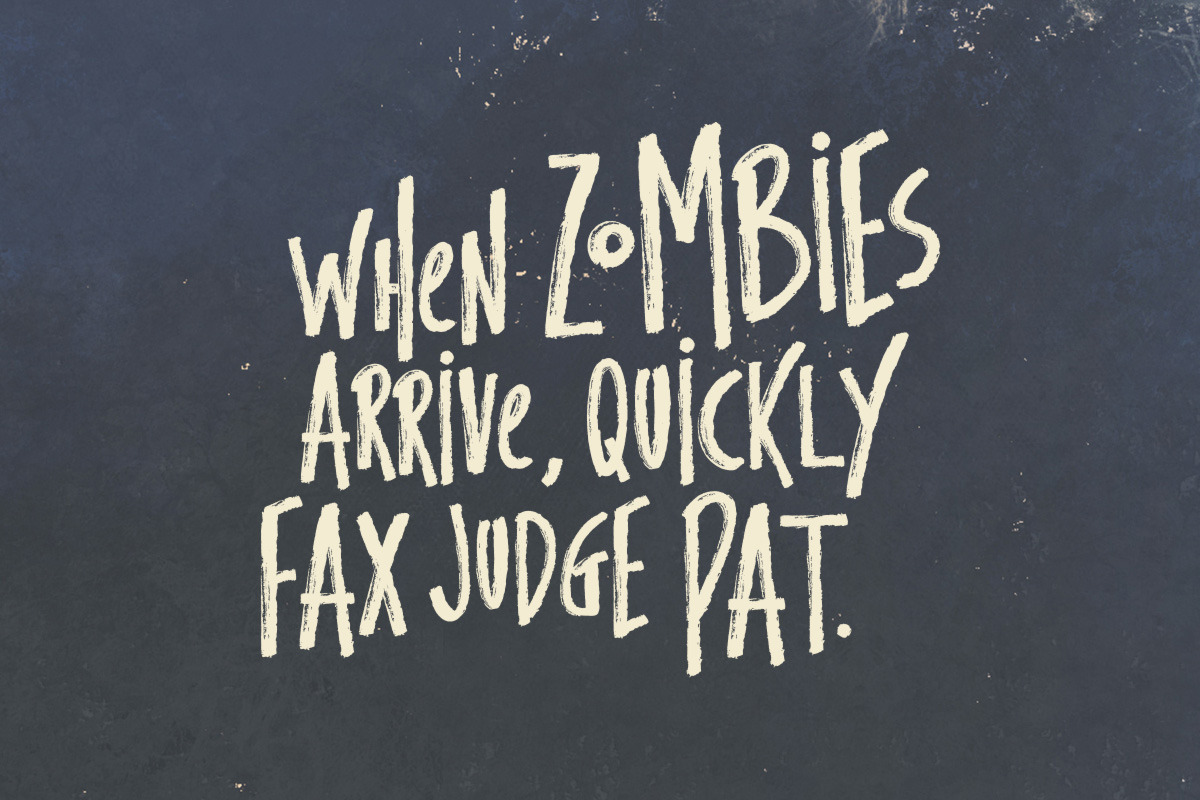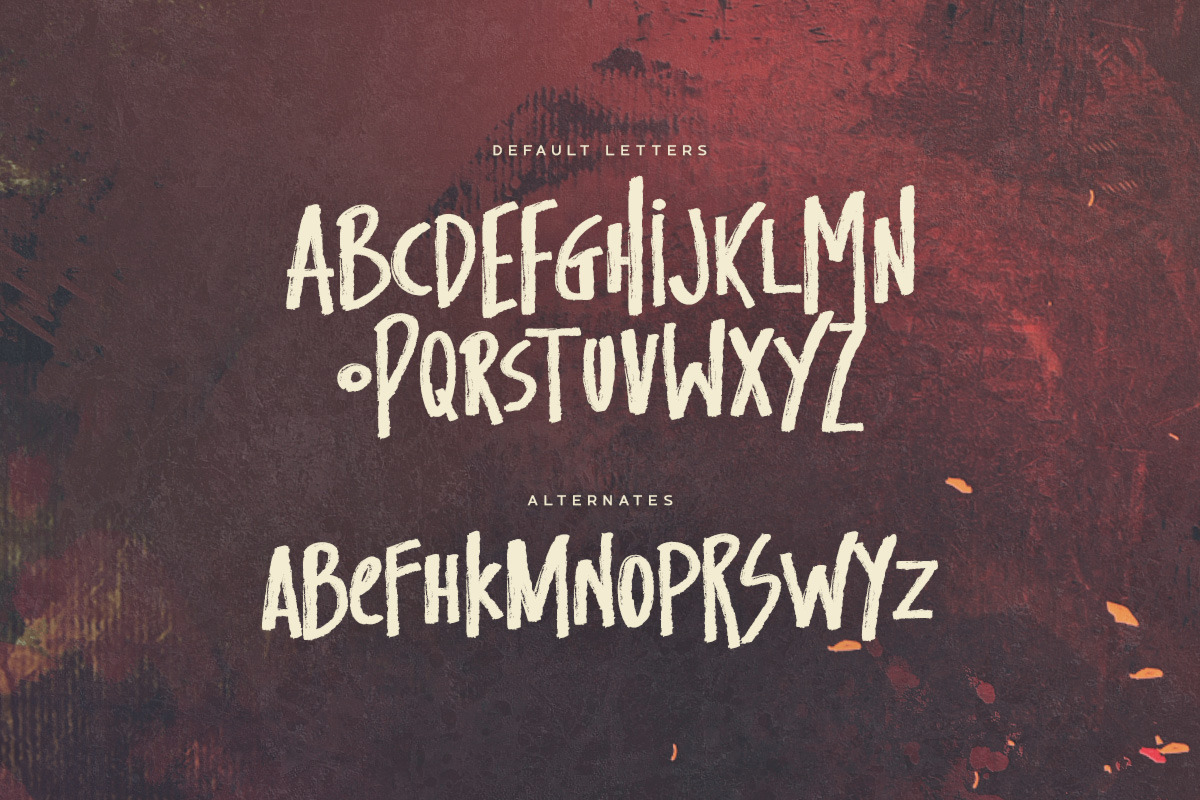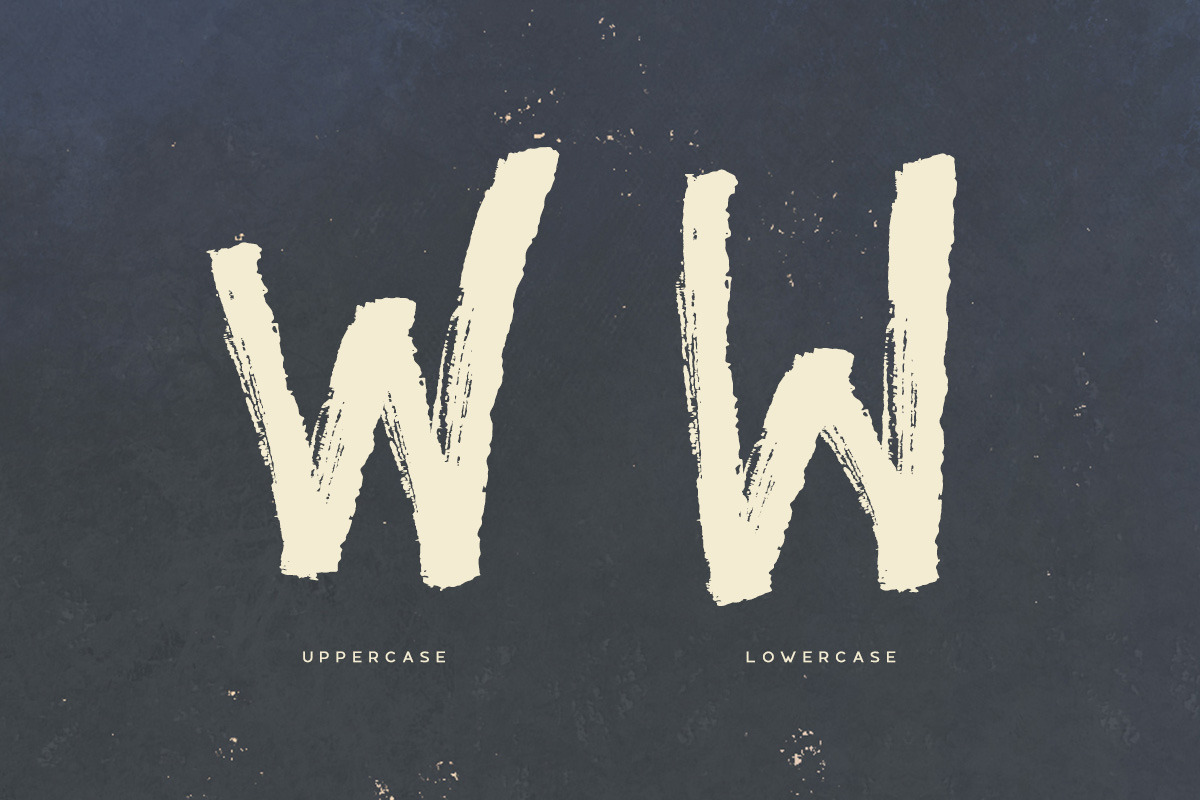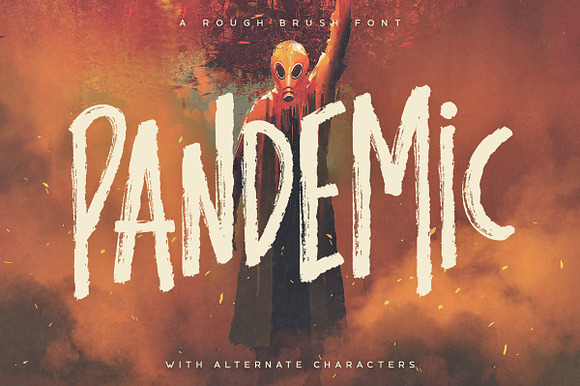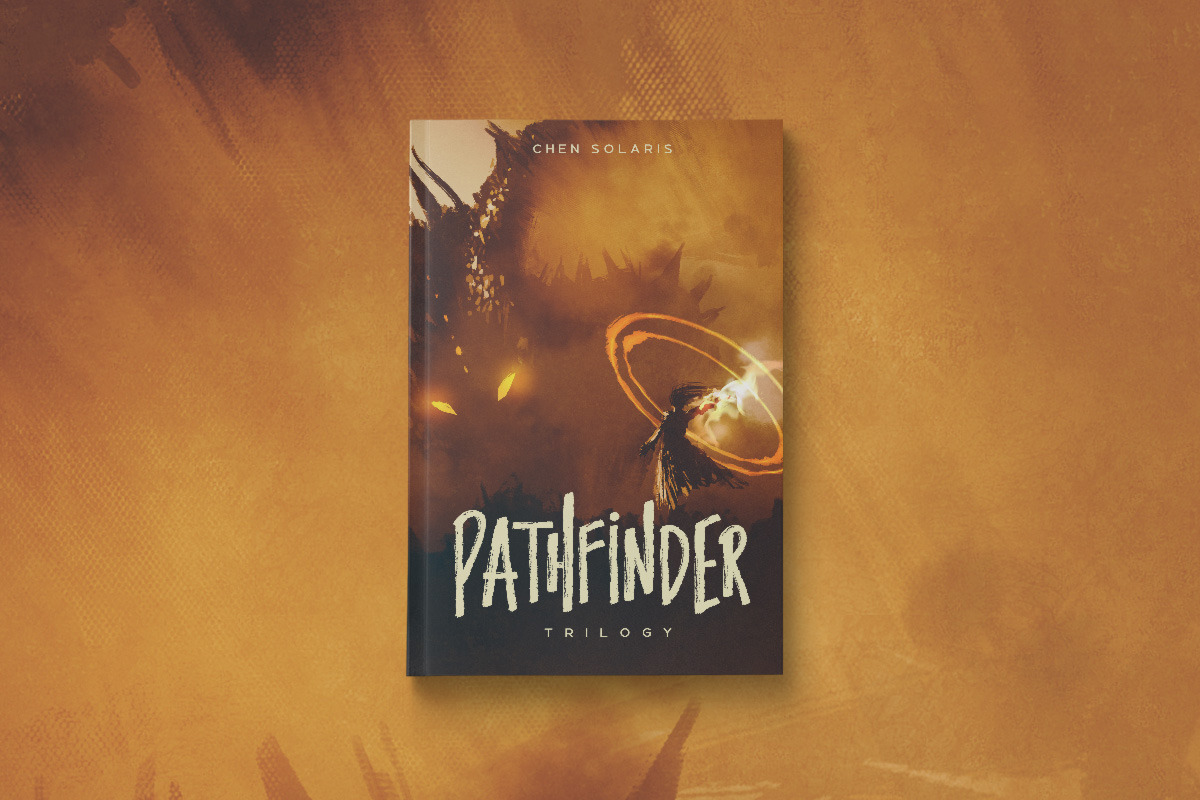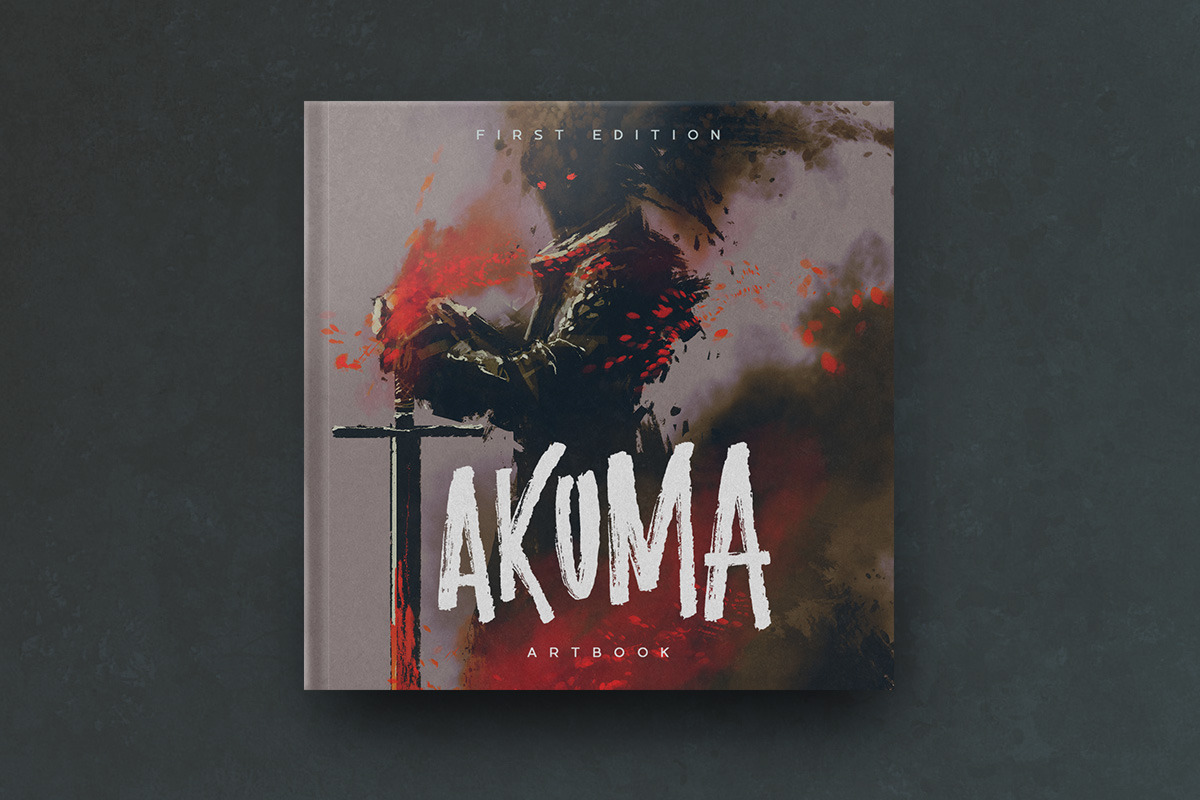
Pandemic - Brush Font
Pandemic is a rough brush font with alternate letters that can be toggled with caps lock. It includes multilingual uppercase letters, numbers and punctuation.
Why Pandemic - Brush Font is worth a look
Pandemic - Brush Font by Tugcu Design Co. fits naturally into Branding, posters, packaging, typography.